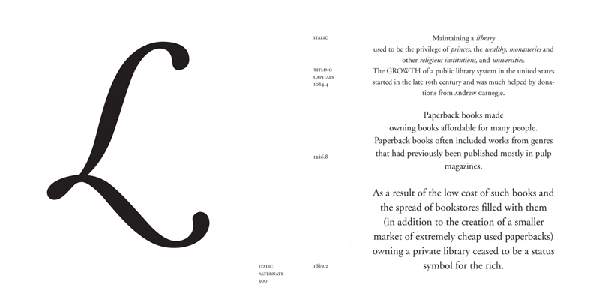
Mrs Eaves, by Jenn Julian; download pdf
The classic fairytale "The Twelve Dancing Princesses" provides the text for this type specimen.
Filosofia, by Charles Calixto; download front pdf; back pdf
This book folds out into a giant poster. The content blocks are Wikipedia topics that link back to typography. |
Helvetica, by Ryan Artell; download pdf
Extreme leading and other effects are used to create an image of Helvetica linked to the "mod" culture of the 1960s.
DIN, by Kate Morgan; download pdf
The text and styling of this book reflect the ideal of industrial norms and standardization embodied in the German font DIN. |
Baskerville, by Lindsay Orlowski; download pdf
The English typeface Baskerville was used to set several important documents of the American Revolution.
Bodoni, by May Yang; download pdf
Music and literature from the Romantic period provide subject matter for this specimen of the classic/romantic font Bodoni. |
Adobe Garamond, by Kate Linder; download pdf
A text about the history and structure of libraries, from the Wikipedia, provides content for this study of Garamond, a classic book face.